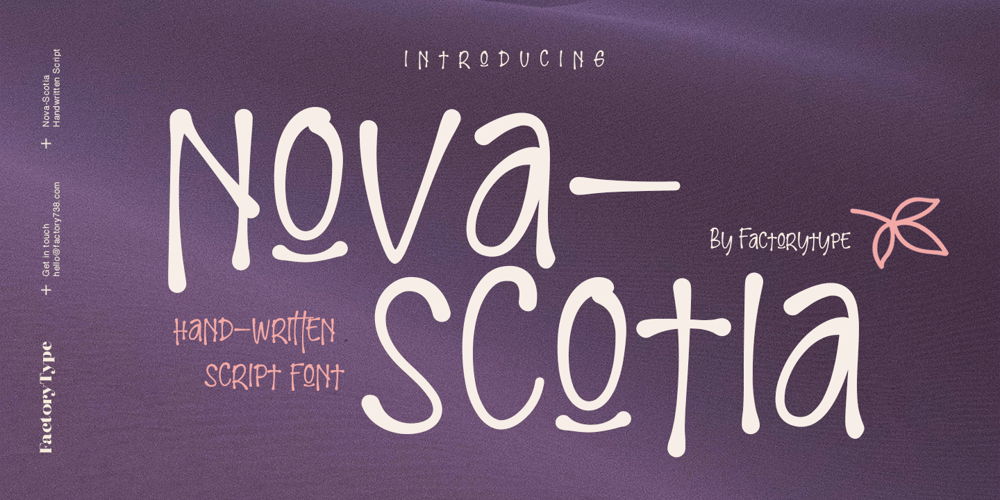
Nova Scotia Font Family was designed by Wahyu Rahmawan and published by Factory738. Nova Scotia contains 2 styles and family package options. Introducing Nova-Scotia – A charming handwritten font with a personalized touch. Nova-Scotia script is ideal for a variety of projects such as branding, logo design, wedding designs, social media posts, advertisements, product packaging, product designs, label, photography, watermark, invitation, stationery, and any other project that requires a handwritten touch. Nova-Scotia Script (Regular, Caps, and Tails) Basic Latin A-Z and a-z Numerals & Punctuation Stylistic Alternates Multilingual Support for ä ö ü Ä Ö Ü … Free updates and feature additions Thanks for looking, and I hope you enjoy it.